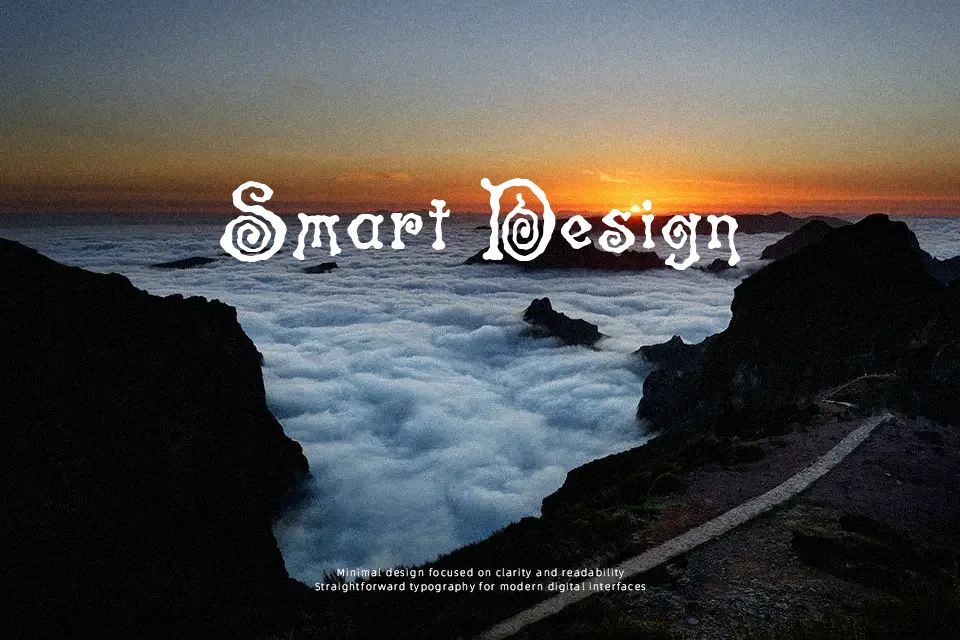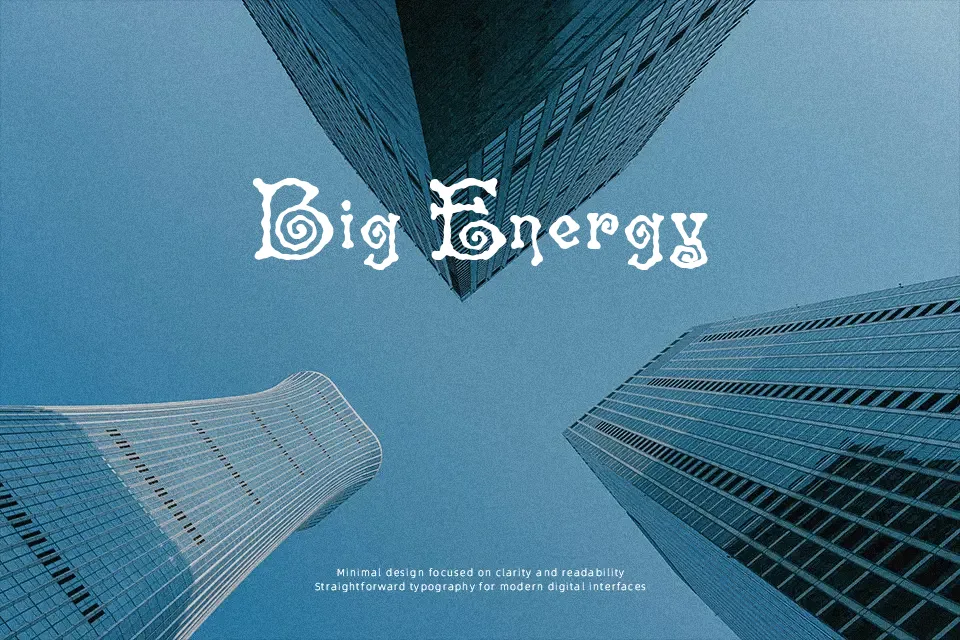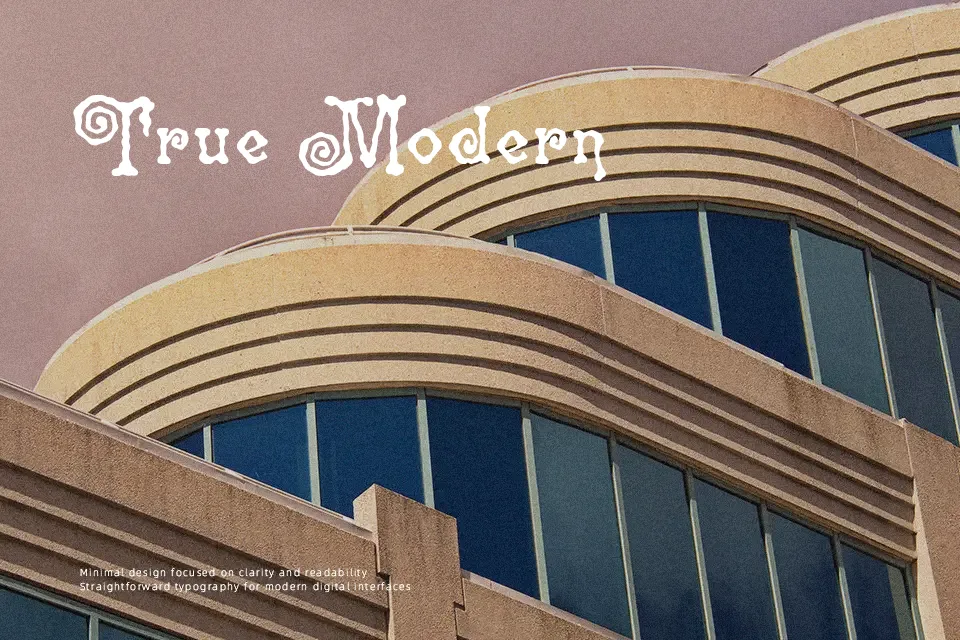
Spinstee Font
Spinstee Font incorporates intricate spiral loops and coiled flourishes directly into the primary stems and terminals of each character. The letterforms display moderate stroke thickness with consistent decorative curling, creating an ornate visual rhythm across headline compositions. Character spacing is relatively open to accommodate the expansive curved swashes, ensuring that individual glyphs remain distinct in short display settings. The design performs exceptionally well for whimsical event banners, storybook headers, and theatrical title graphics. However, the heavy concentration of decorative curls reduces character separation at reduced scales. Fine swashes tend to blur together in compact body text, making this typeface less suitable for continuous paragraphs or dense editorial layouts.
Best For: carnival posters,whimsical book covers,themed event invitations,theatrical title cards
Not Ideal For: long paragraph text,mobile user interfaces,technical manuals,small caption copy
Perfect for branding, headline, and invitation, with a creative and decorative style.